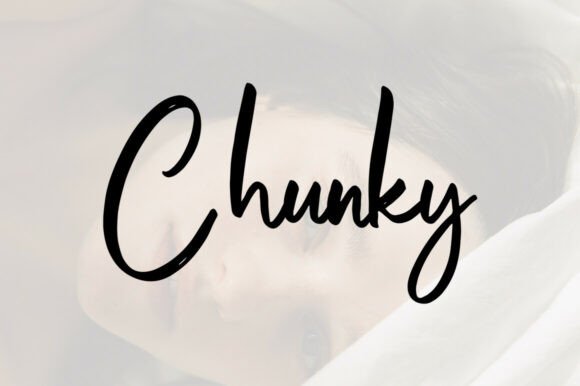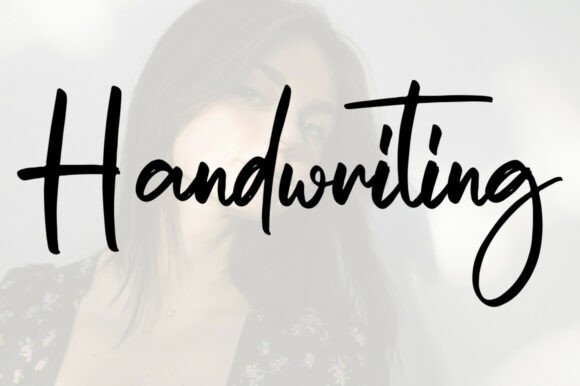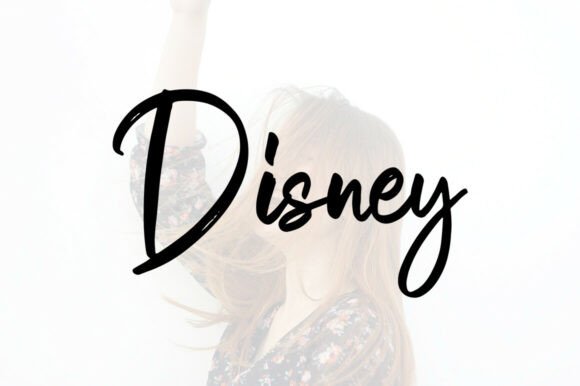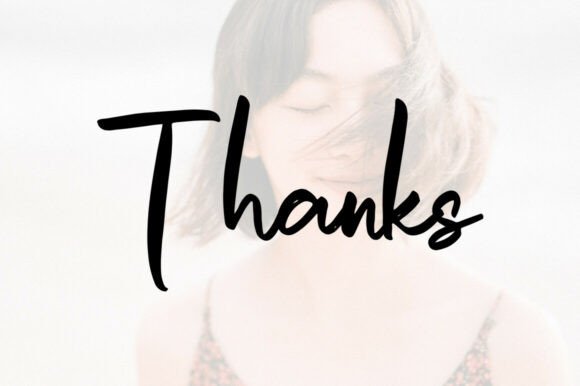
Discover the Charm of Boarding Font: Elevate Your Designs with a Timeless Handwritten Style
Are you on the hunt for a font that adds a personal touch to your designs? Look no further than Boarding Font, a lovely and timeless handwritten font that is sure to capture the hearts of designers and crafters alike. With its unique and beautiful touch, Boarding Font is the perfect choice for creating eye-catching logos, branding, and quotes that stand out from the crowd.
Handwritten fonts have a way of adding a personal and human touch to any design. They evoke emotions and create a sense of connection with the reader. In an era dominated by digital communication, handwritten fonts offer a refreshing respite from the cold, impersonal world of typography. Boarding Font is a shining example of a handwritten font that is both elegant and approachable.
What Makes Boarding Font Special?
So, what sets Boarding Font apart from other fonts? For starters, every letter has a unique and beautiful touch that makes it come alive. The font is crafted with love and care, with each letter carefully designed to convey a sense of warmth and personality. Whether you’re creating a logo, branding materials, or quotes, Boarding Font is sure to add a touch of magic to your designs.
Boarding Font is a versatile font that is perfect for designers and crafters who want to add a personal touch to their work. Whether you’re creating:
• Logos: Create eye-catching logos that tell a story and leave a lasting impression.
• Branding materials: Develop a consistent brand identity with a font that exudes warmth and personality.
• Quotes: Add a touch of elegance and sophistication to your quotes and sayings.
• Stationery: Create beautiful stationery that stands out from the crowd.
Boarding Font is the perfect choice. Its unique and beautiful touch makes it ideal for a wide range of design applications.
Tips for Using Boarding Font Effectively
To get the most out of Boarding Font, here are some tips to keep in mind:
• Use it sparingly: Boarding Font is a statement font, so use it sparingly to add emphasis and create visual interest.
• Pair it with other fonts: Experiment with pairing Boarding Font with other fonts to create a unique and visually appealing combination.
• Adjust the size and color: Play around with different sizes and colors to add depth and dimension to your design.
In conclusion, Boarding Font is a timeless handwritten font that is sure to elevate your designs to the next level. With its unique and beautiful touch, it’s the perfect choice for designers and crafters who want to add a personal touch to their work. Whether you’re creating logos, branding materials, quotes, or stationery, Boarding Font is a versatile font that is sure to impress. So why wait? Discover the charm of Boarding Font today and take your designs to new heights!
Get Ready to Fall in Love with Boarding Font